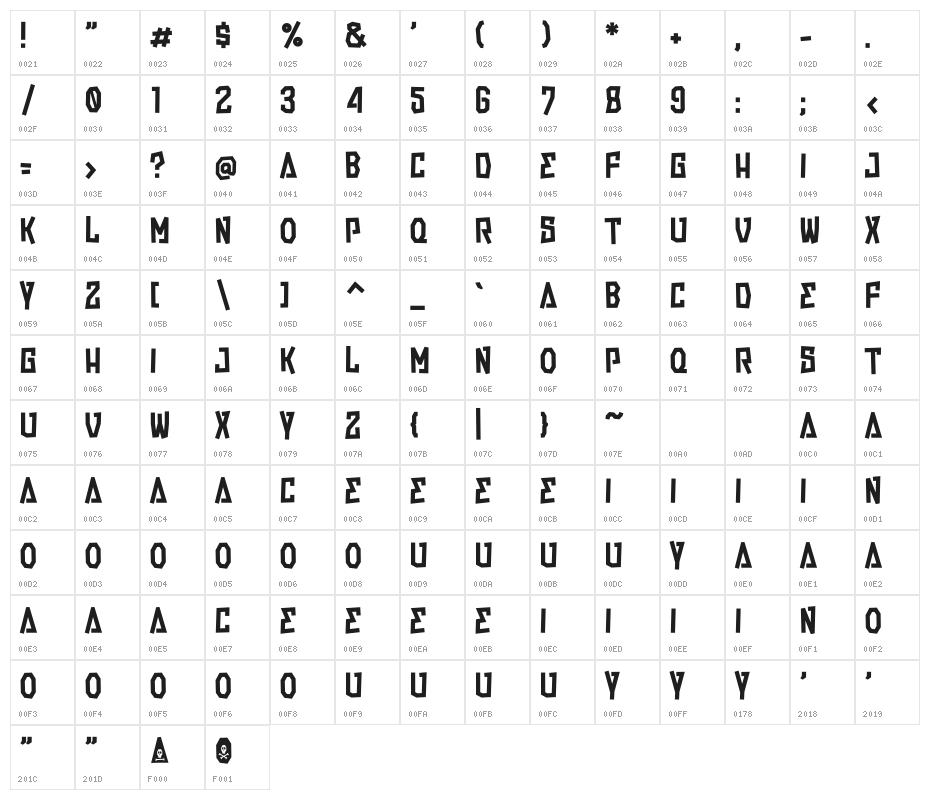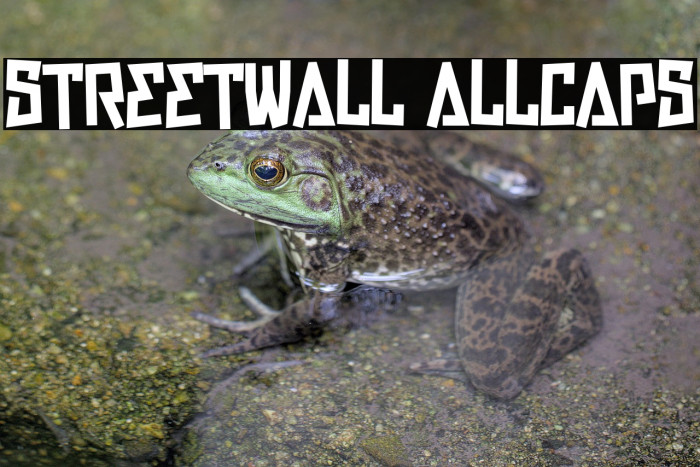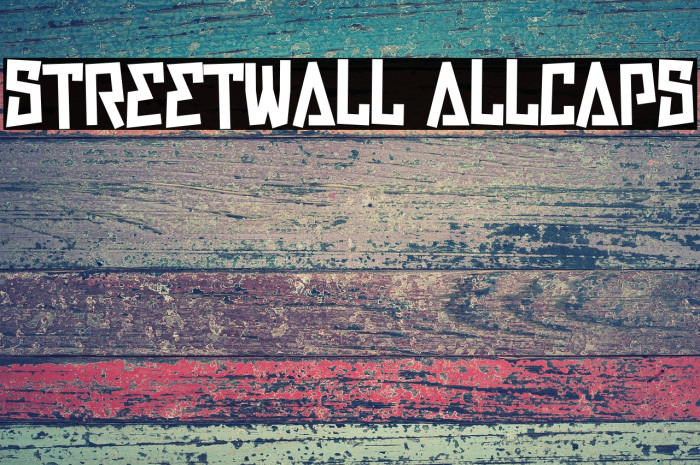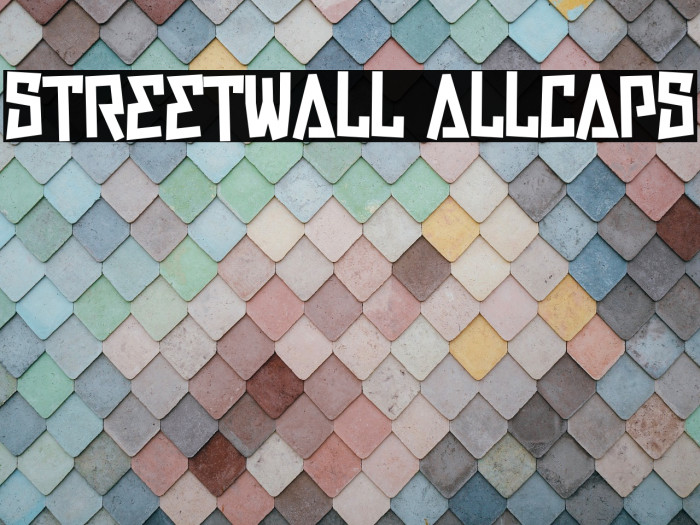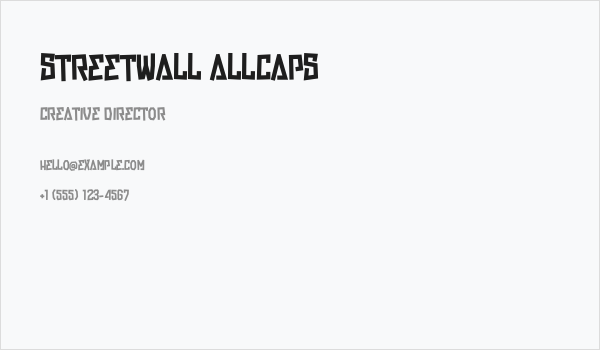
Streetwall Allcaps Font
Streetwall Allcaps Description
This font features a bold and edgy design, reminiscent of urban street art and graffiti. The characters are angular and dynamic, with a slightly irregular shape that adds a sense of movement and energy. The uppercase letters are particularly striking, with sharp edges and a strong presence. The numbers and special characters maintain the same bold style, making them suitable for attention-grabbing designs. This font is perfect for projects that require a modern and rebellious aesthetic, such as posters, album covers, and branding for edgy or alternative brands.
| Overall Style | Modern, Urban, Edgy |
| Proposed Projects | Ideal for posters, album covers, streetwear branding, and urban-themed designs. |